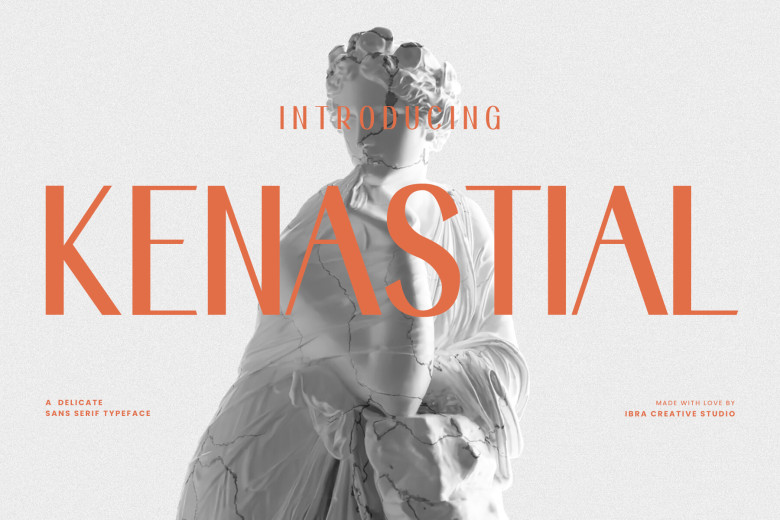
Kenastial Font
Kenastial an elegant sans-serif typeface, exudes sophistication through its sophisticated yet harmonious style. Featuring sleek lines and balanced proportions that create a contemporary design with timeless adaptability.
Kenastial is delicately tapered strokes as well as softly rounded letterforms add further charm, making this versatile font perfect for various design-related applications.
Kenastial Sans Serif Font